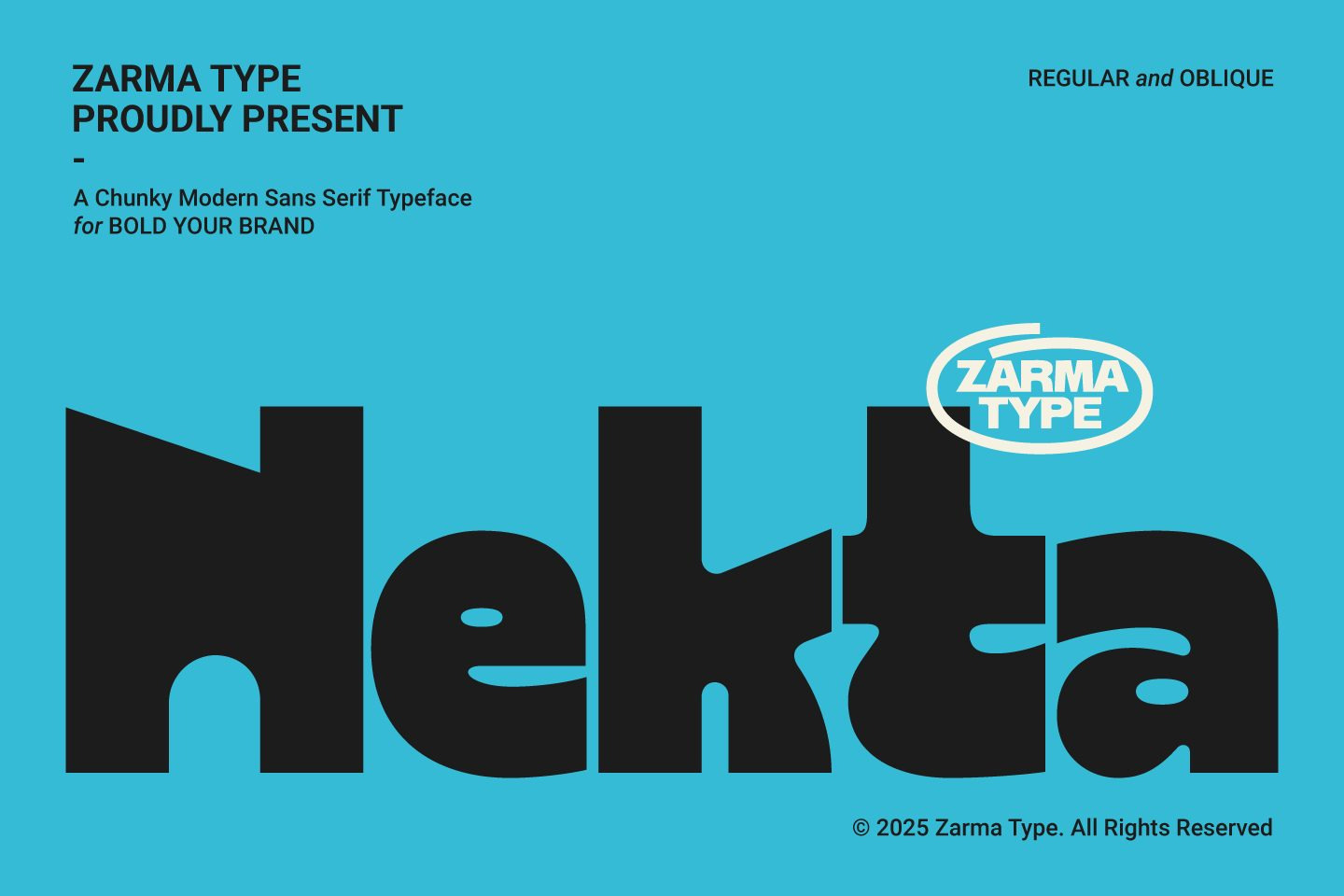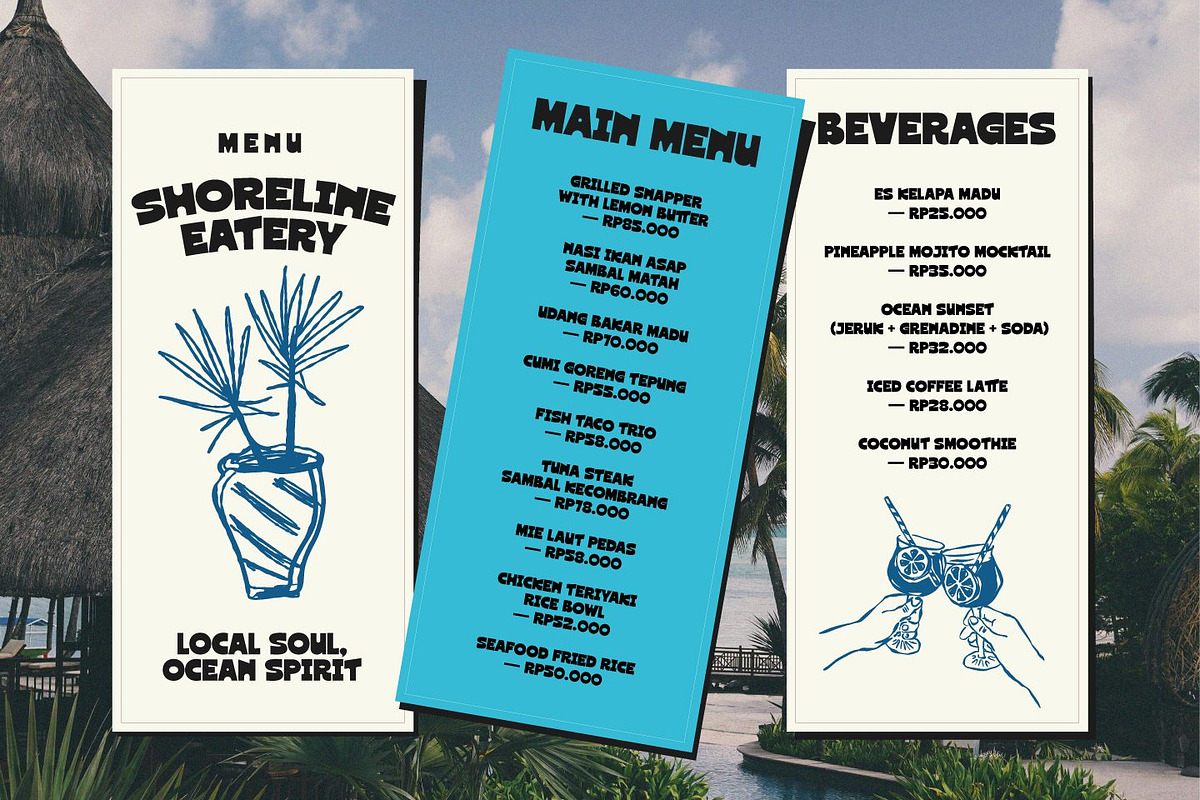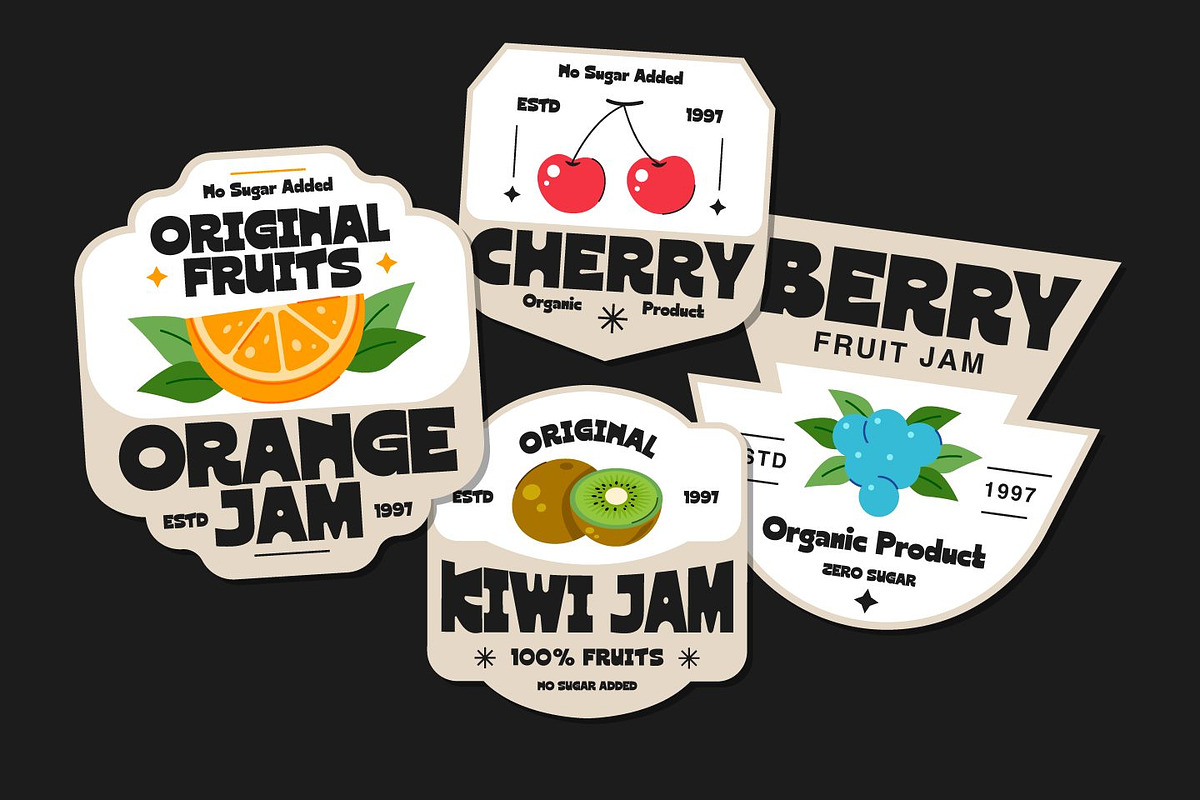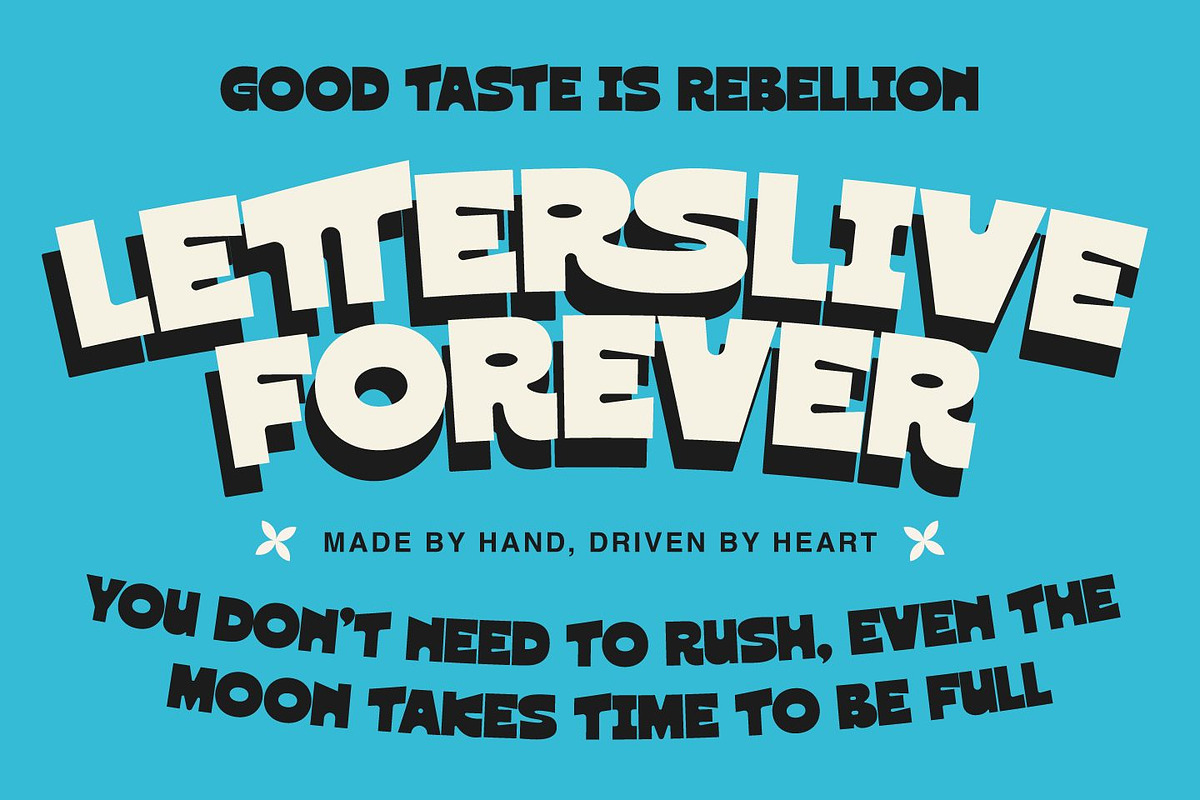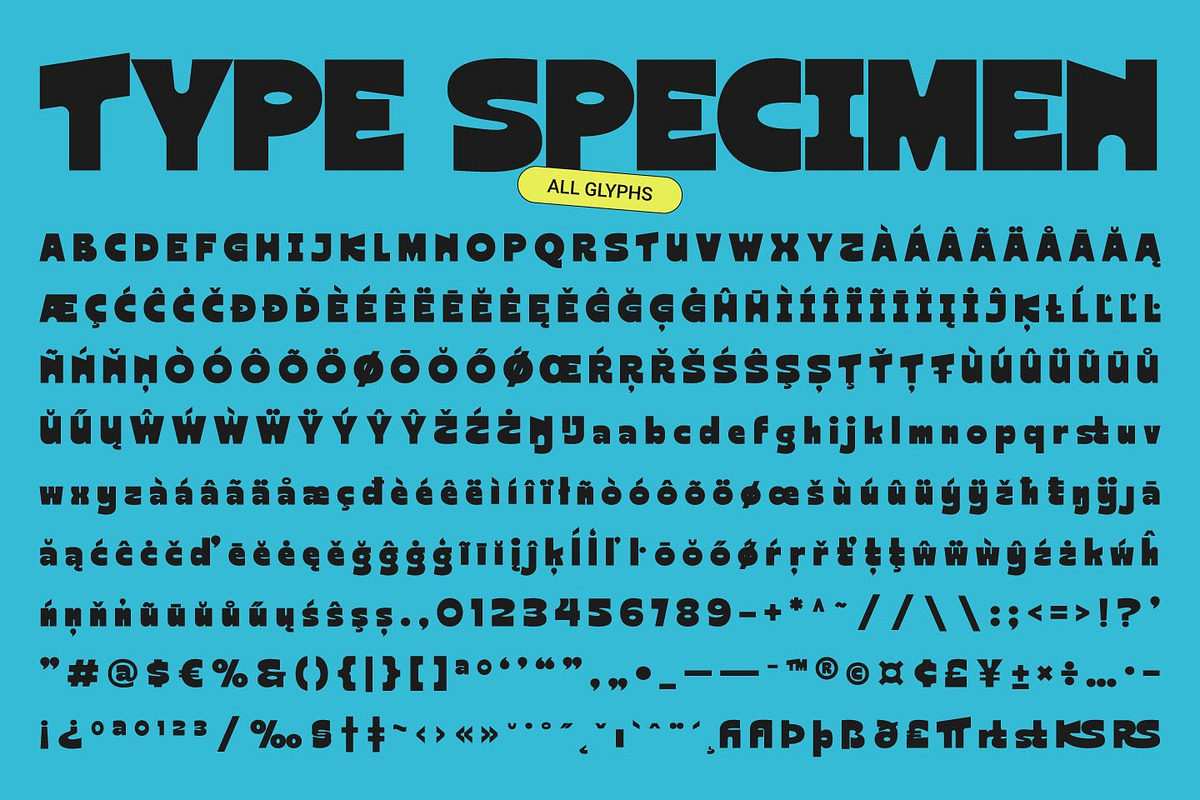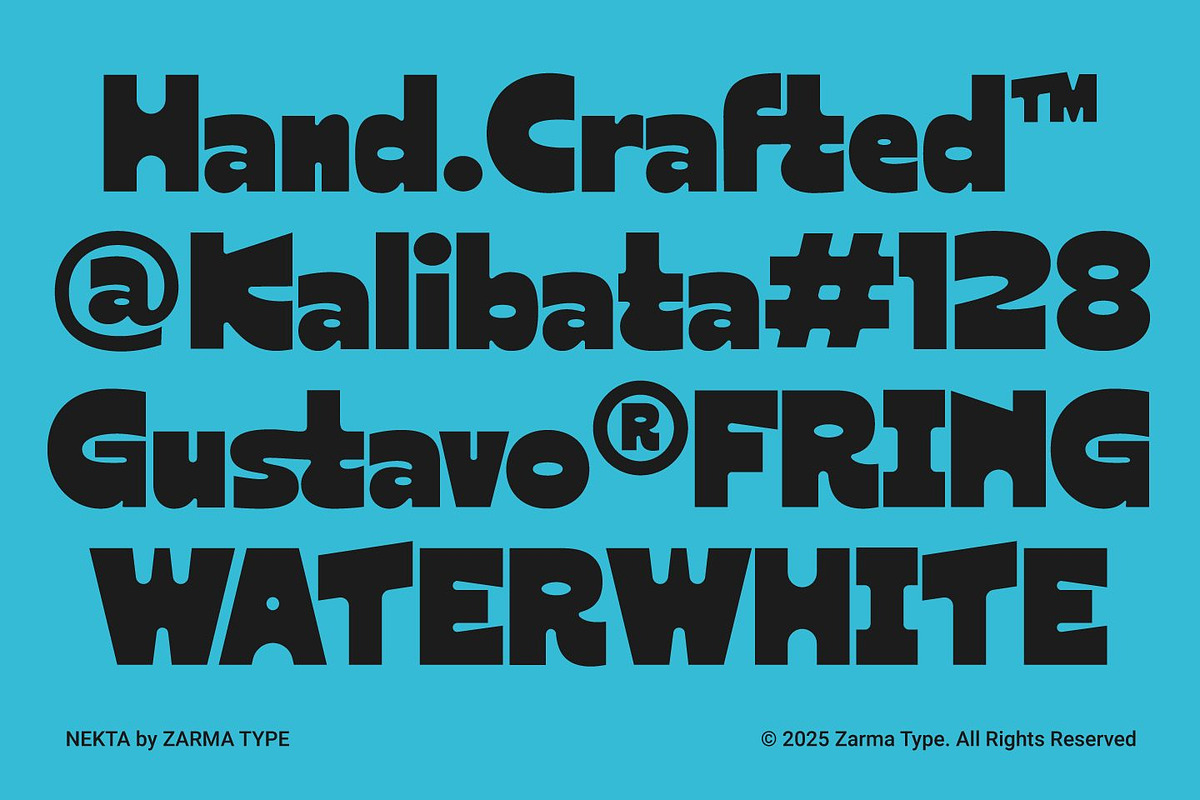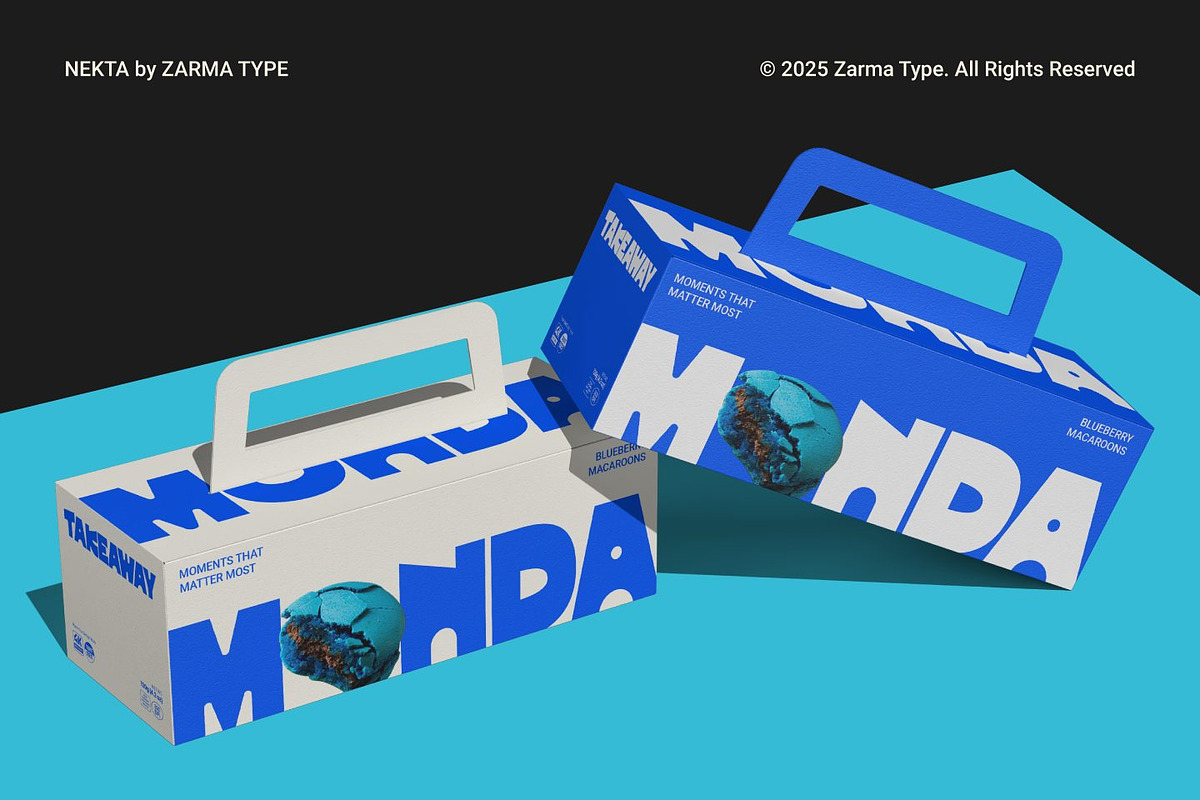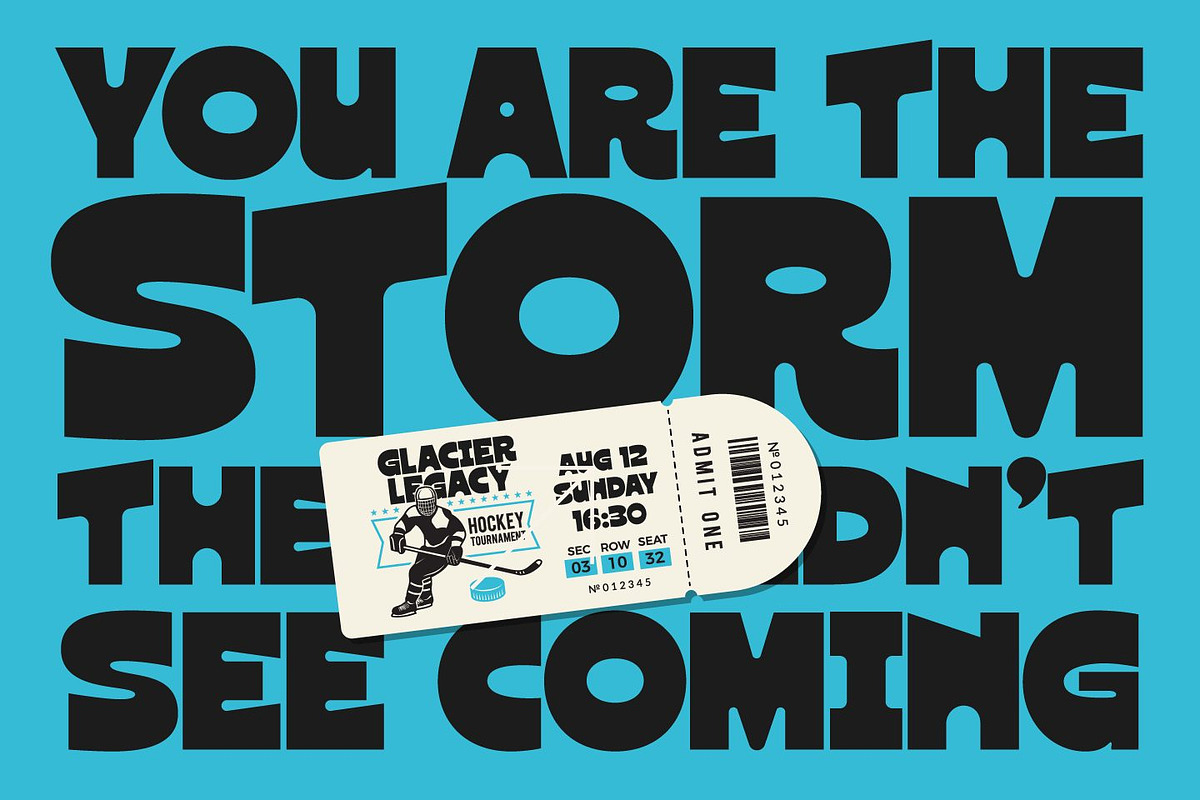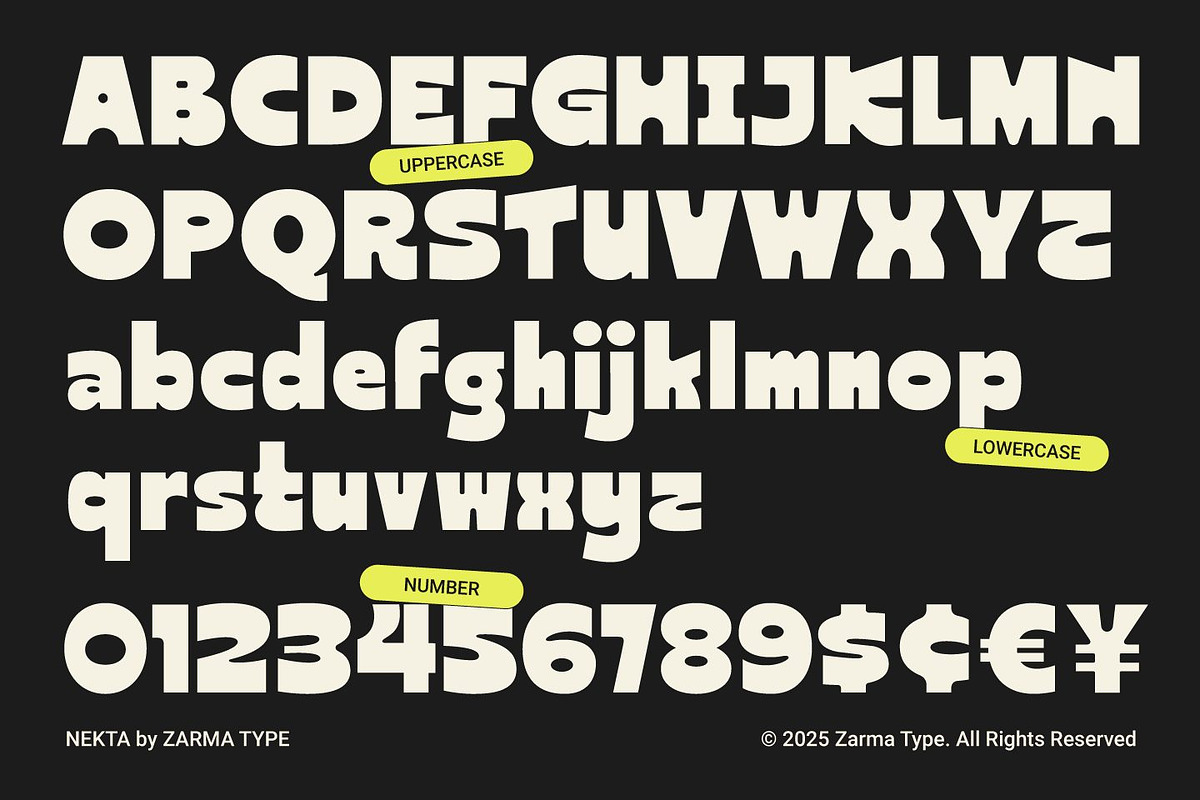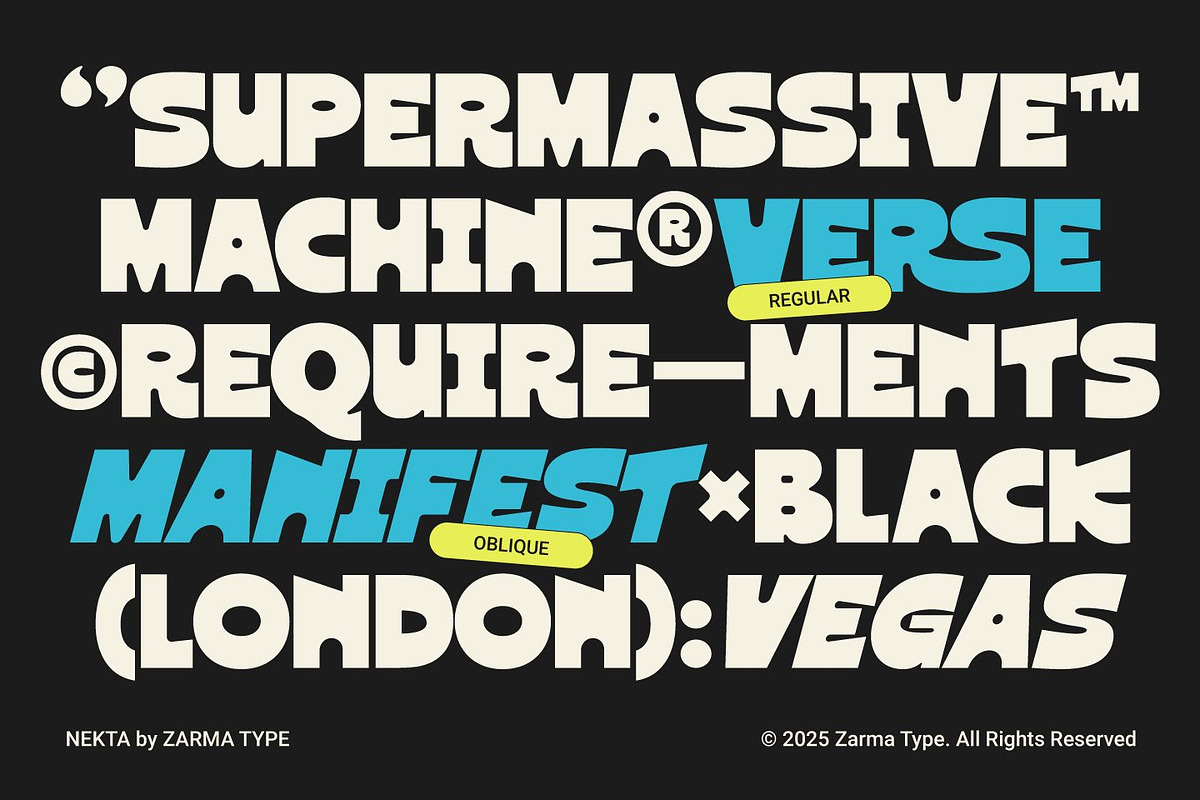
Nekta - Bold Modern Sans Serif Font
Nekta is a bold modern sans serif font with confident weight, rounded corners, and playful geometry that turns short words into powerful headlines. Generous counters and clean spacing keep it readable on menus, posters, and product cards. When layouts need extra momentum or a quick hint of emphasis, an oblique version is available to add movement without changing families.
Built for practical branding, Nekta holds its structure from small labels to giant billboards. The rhythm stays steady, and the voice remains friendly, even in tight settings. Alternate glyphs help you tune word shapes, while multilingual support keeps global projects consistent. And if you want a directional accent, simply lean the text—the oblique cut is available for that purposeful tilt.
Perfect for: Brand identity, menu boards, event posters, product labels, sports tickets, packaging, billboard headlines, social promos, badges, wayfinding.
- 2 Styles: Regular & Oblique
- Numbers, punctuation & symbols